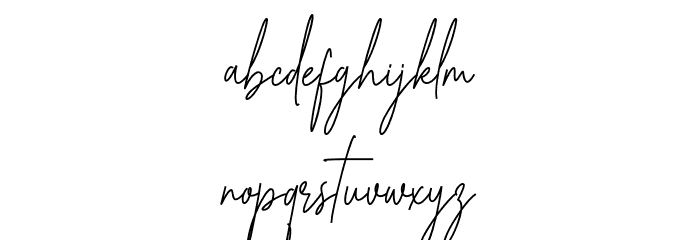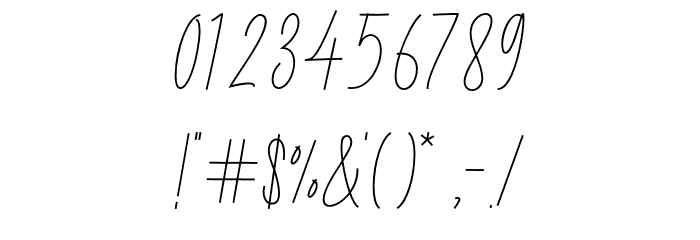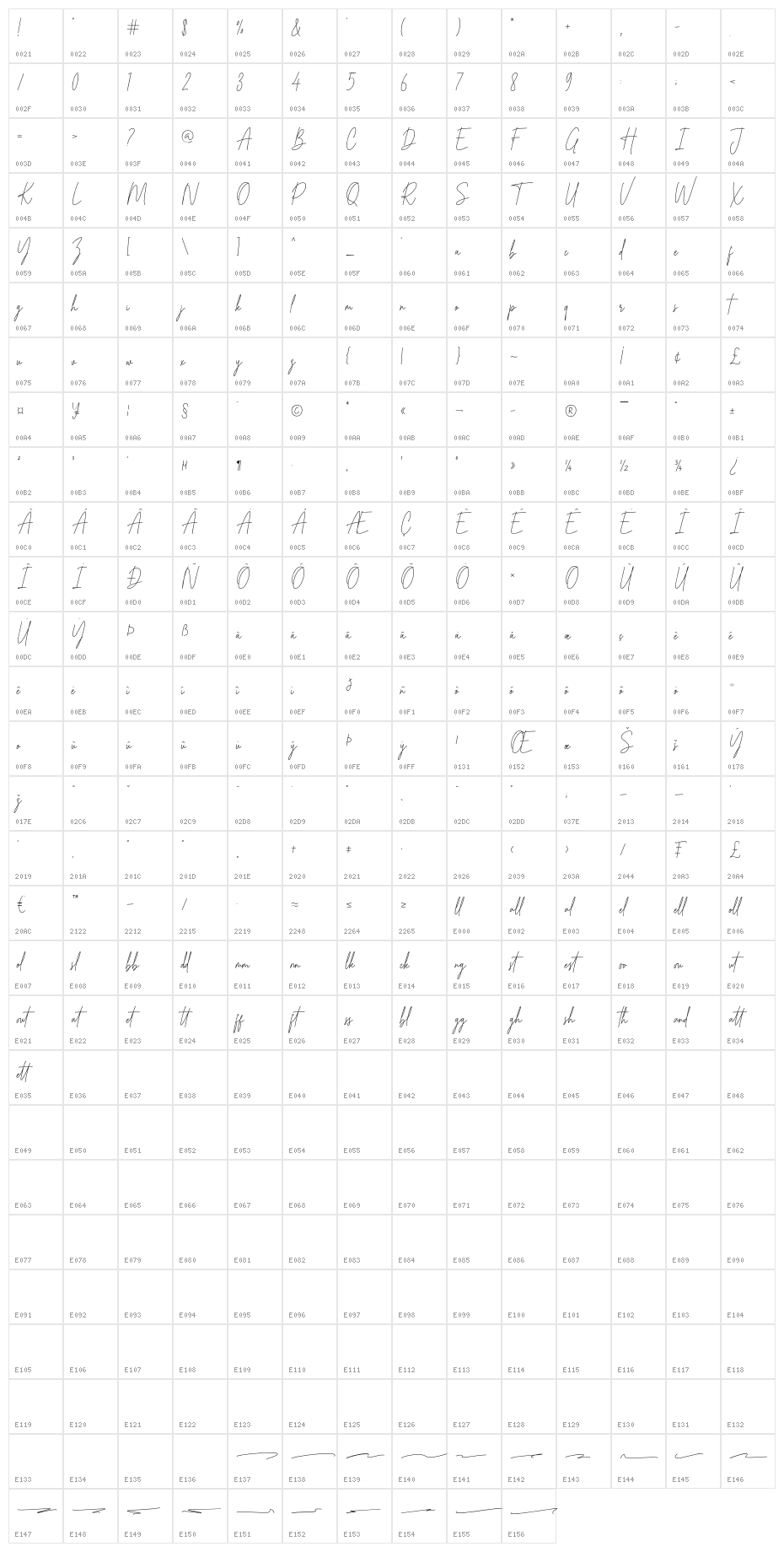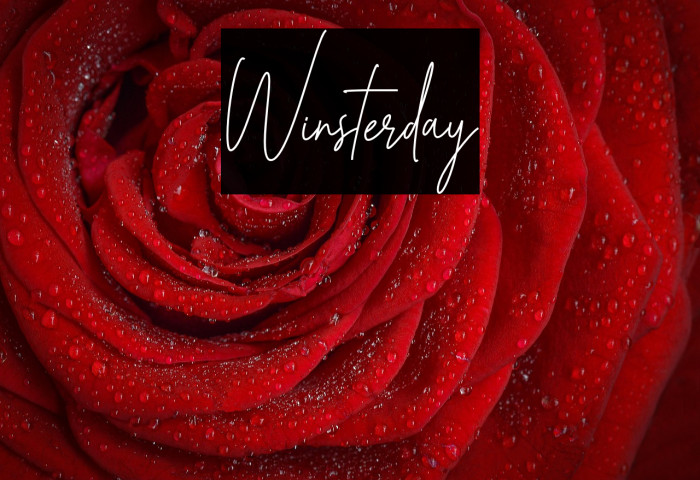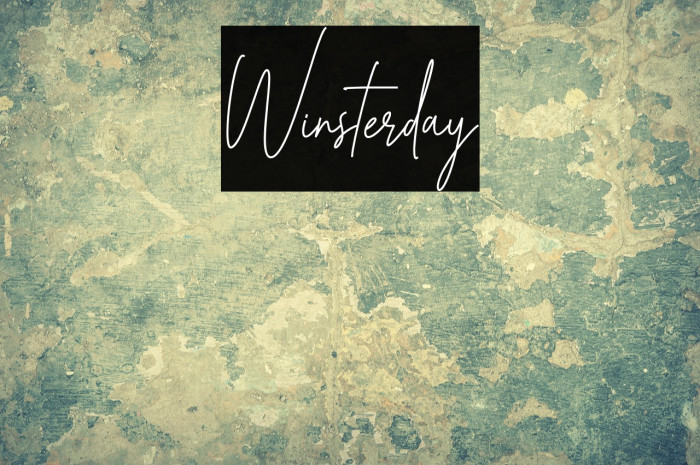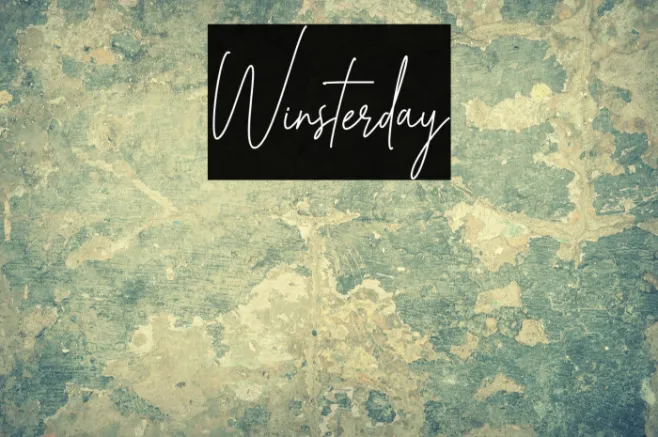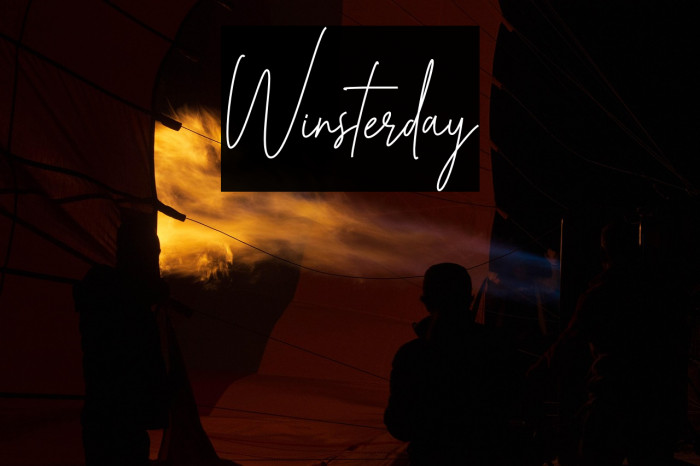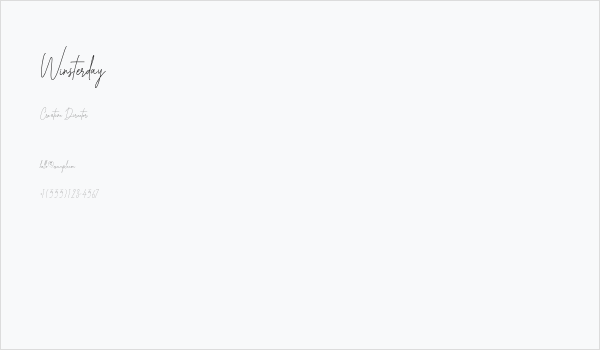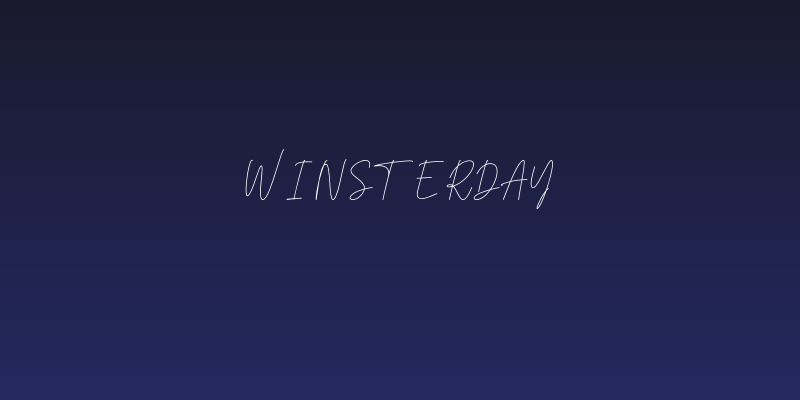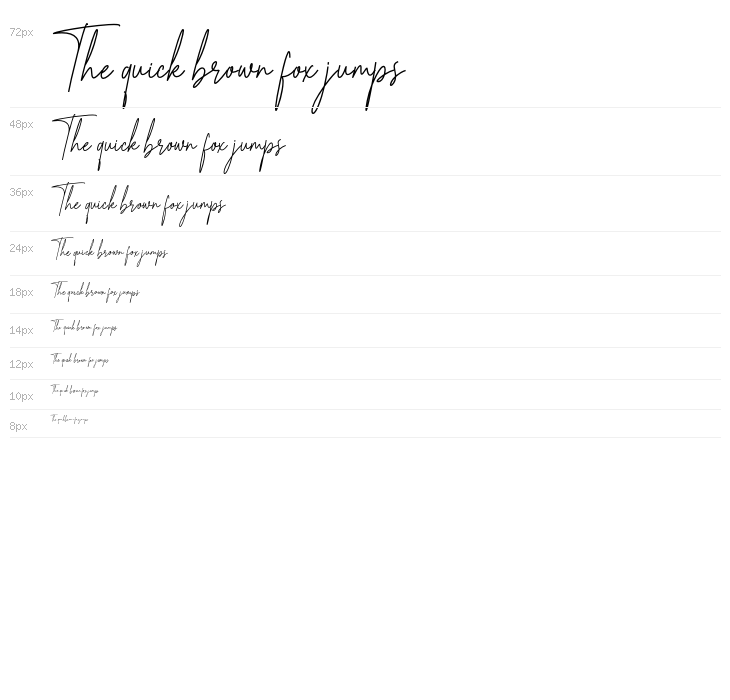
Winsterday Font
This font features a delicate and elegant script style, characterized by its thin, flowing lines and a handwritten appearance. The uppercase letters are tall and slightly slanted, giving a sense of sophistication and grace. The lowercase letters maintain a consistent flow, with smooth curves and loops that enhance the handwritten feel. Numbers and special characters are designed with the same thin strokes, ensuring a cohesive look across all elements. The overall aesthetic is modern yet timeless, making it suitable for a variety of design applications.
A delicate, elegant script font with a handwritten style.
- Proposed Projects: Ideal for wedding invitations, greeting cards, personal branding, and elegant packaging designs.